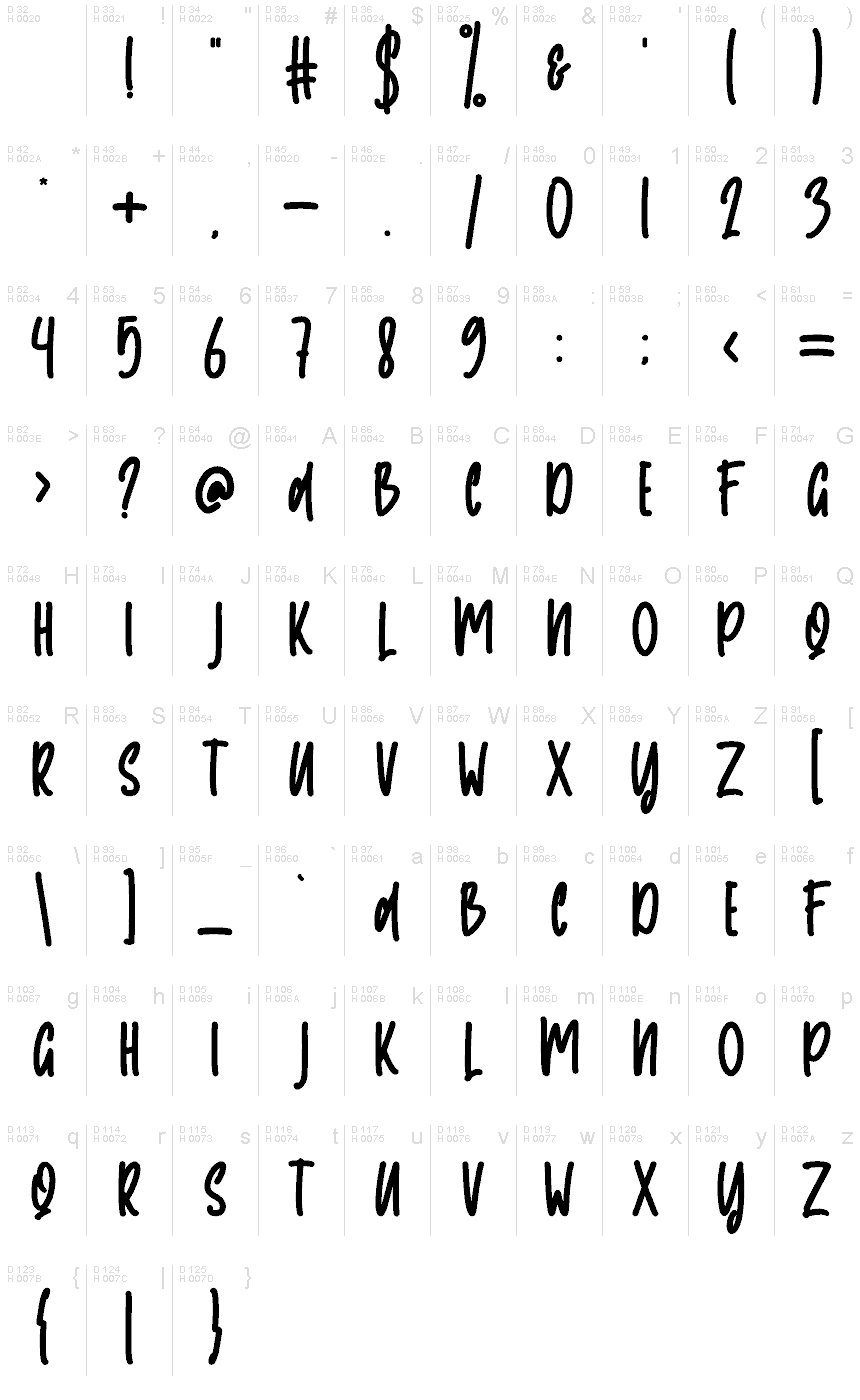
Mayback
Mayback font by Skiiller Studio is a handwritten condensed font with an energetic and contemporary style. It carries an expressive and informal aesthetic with a casual tone that appeals to those seeking authenticity. The design feels alive and dynamic, making it perfect for projects that want to capture attention through a modern lens.
This free handwritten font is ideal for branding, especially targeting younger demographics or creative industries like graphic design and fashion. Use Mayback for logos, quotes, posters, book covers, invitations, greeting cards, website headers, social media posts, product packaging designs such as coffee bags or candy boxes typography.